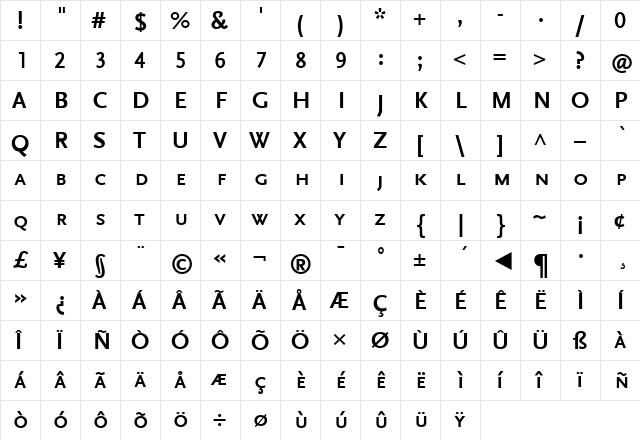
ADScalaSansCaps Bold
Design Context for ADScalaSansCaps Typeface
ADScalaSansCaps offers clean, dependable letterforms without strong stylistic allegiance, making it a practical choice for designers who need flexibility. Its bold stroke weight gives it real presence on the page.